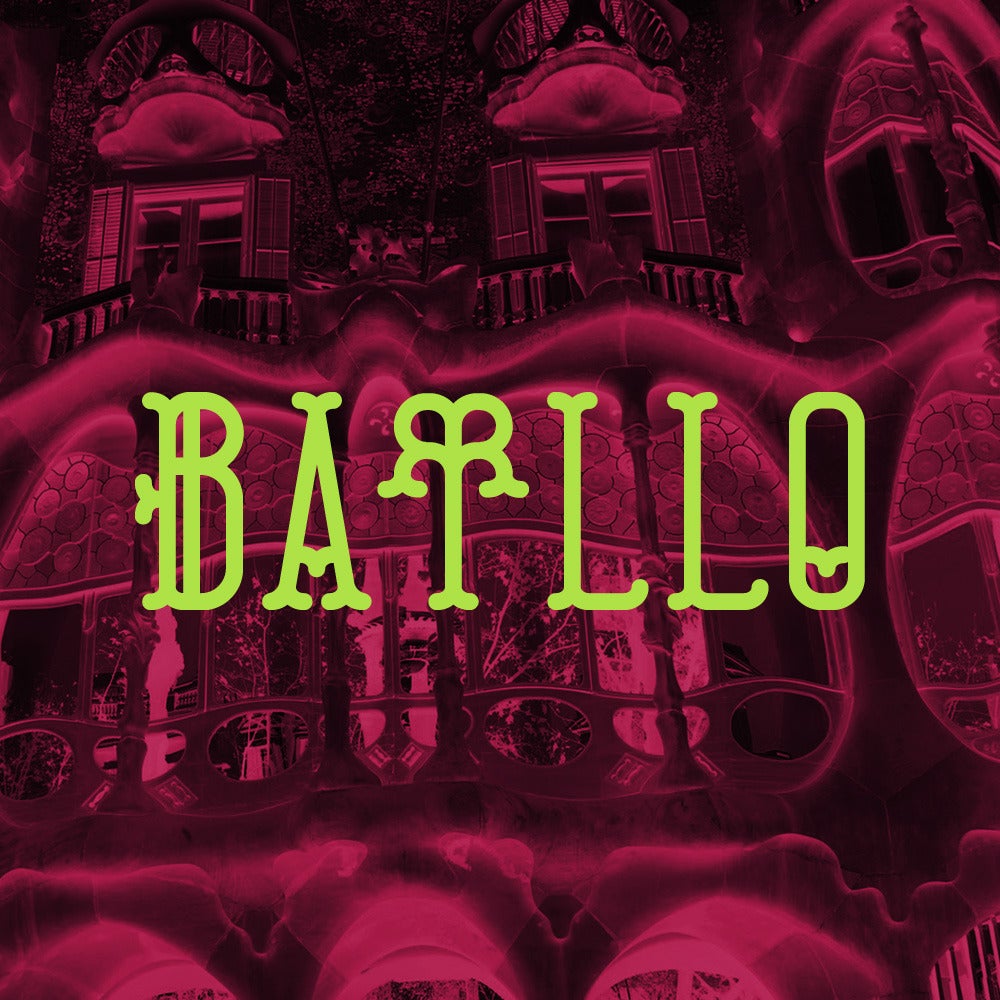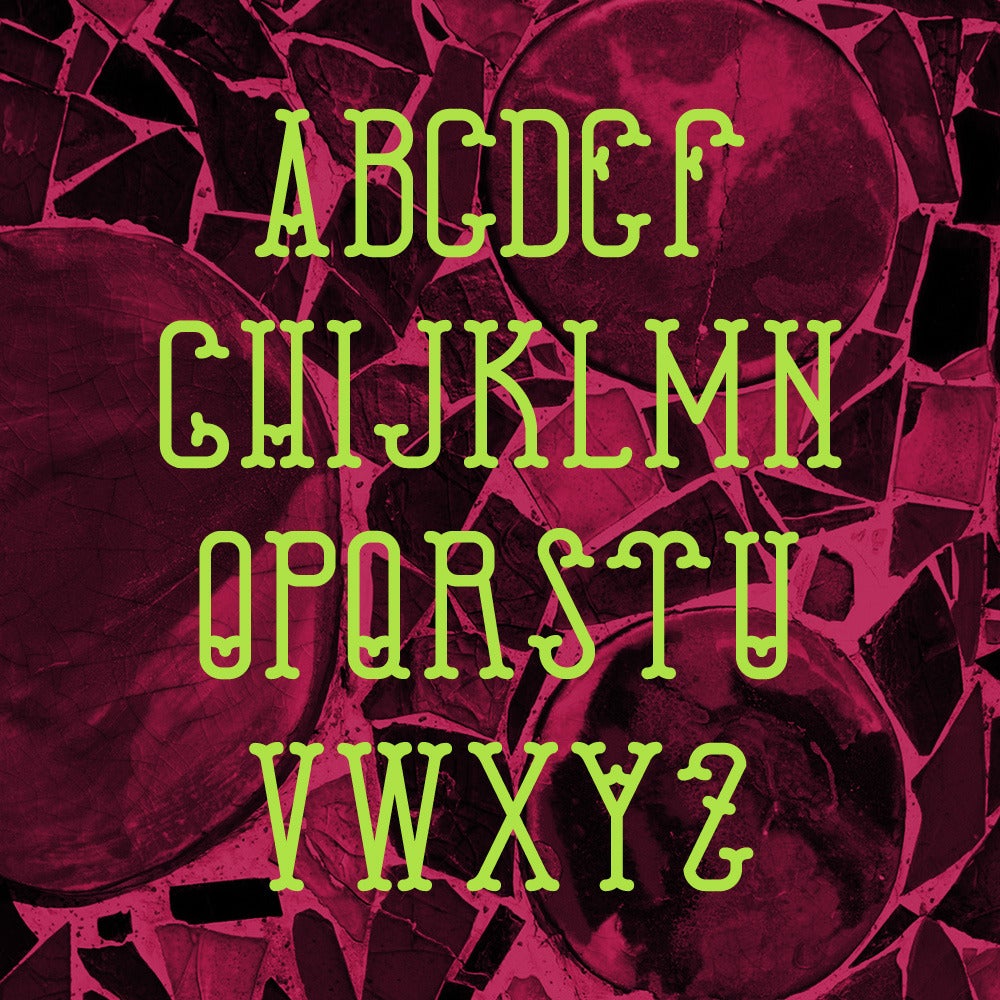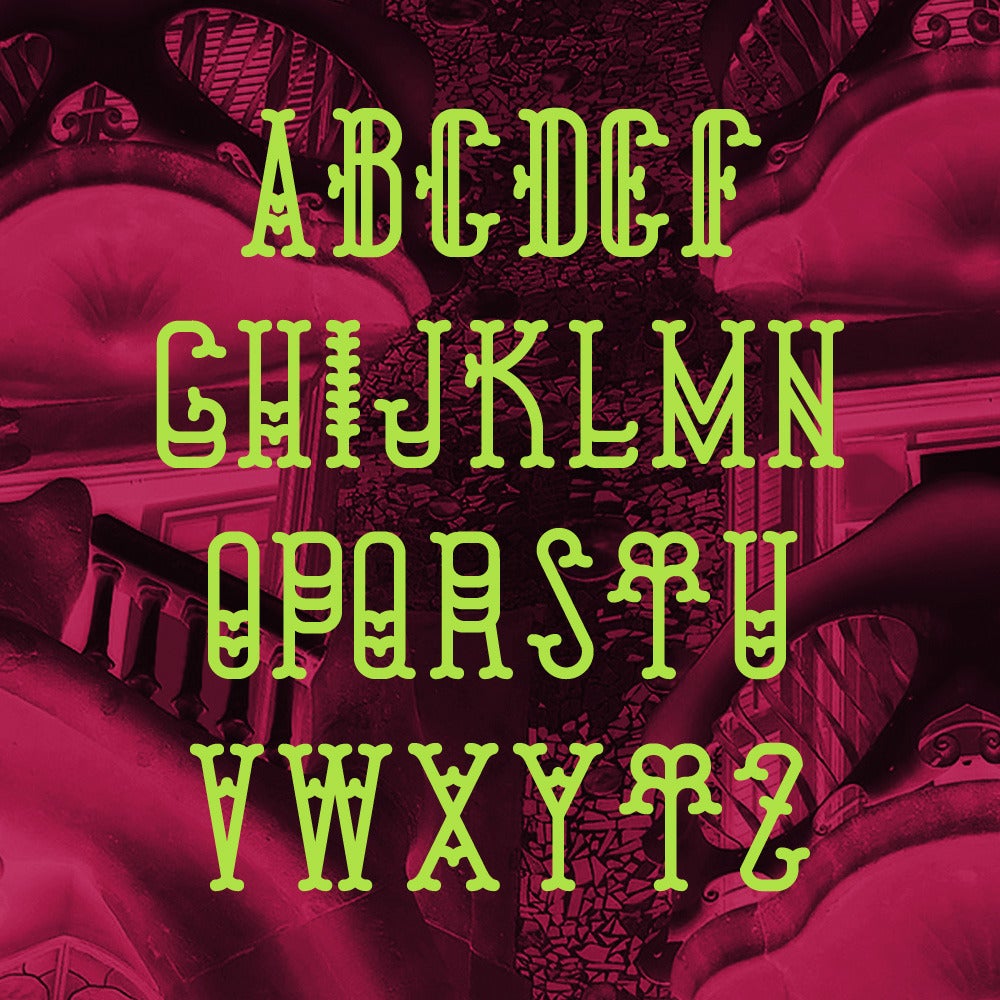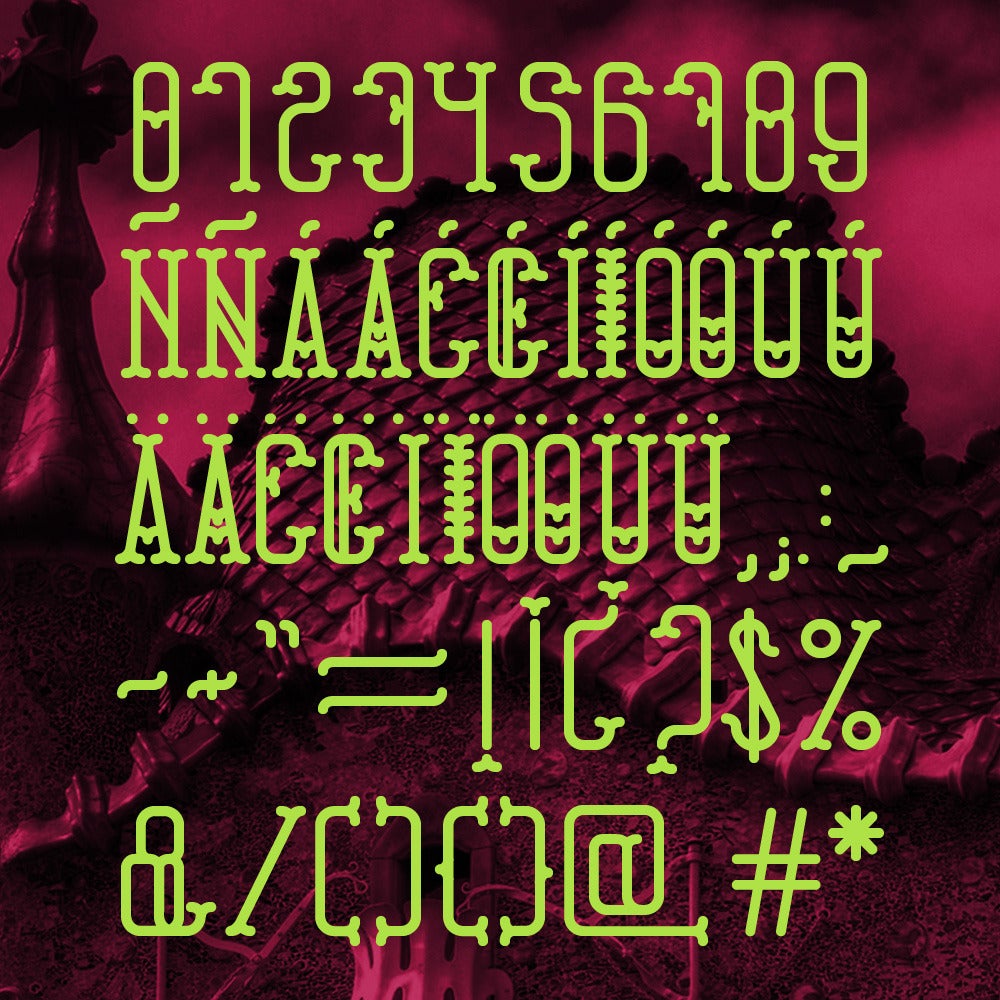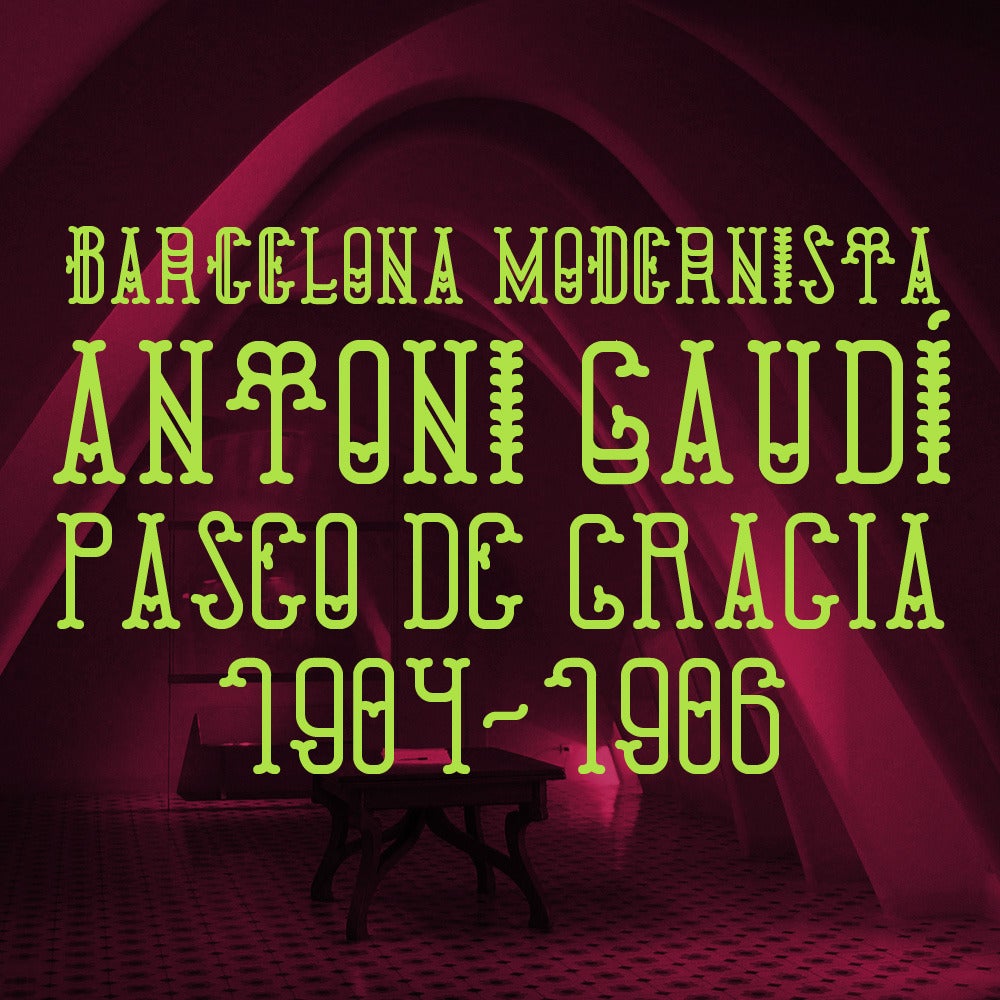
Batllo
Batllo is a font born from experimentation which reminds modernist shapes. Modernism surprises us with a step further in ornamentation, that is why you can find that Batlló Caps are pretty decorated.
Designer: Mónica Vigo